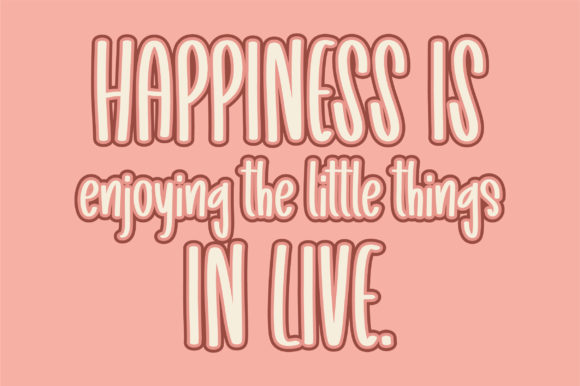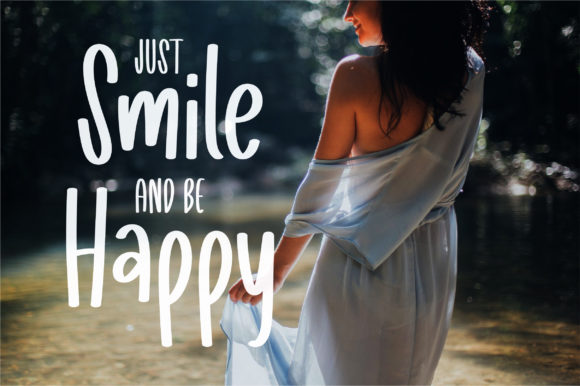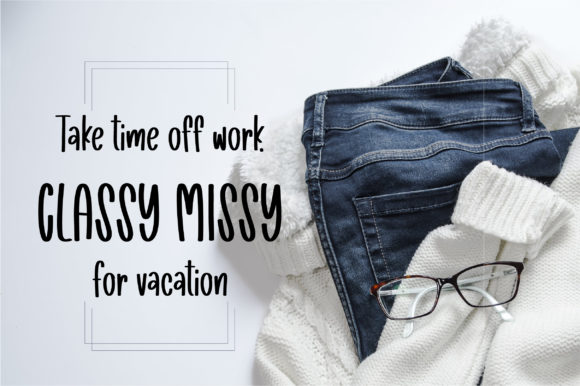
Introduction to Happiness is Font
Do you remember that moment when you stumbled upon the perfect design element for your creative project? The one that made everything click into place and your vision shine? That’s exactly what we’re excited to share with you today – a game-changing design resource that will elevate your next project: the Happiness is Font.
As designers, we’re always on the lookout for high-quality, versatile fonts that can breathe life into our ideas. And that’s exactly what Happiness is Font offers – a cheerful and friendly font perfect for illustrations, posters, logos, book covers, and much more. With a transparent background and free download option, this design resource is a must-have for any creative project. Whether you’re a seasoned pro or just starting out, Happiness is Font is sure to bring a smile to your face and a touch of magic to your designs.
- Unique, modern design that conveys a sense of joy and positivity, perfect for branding and design resources
Honest Review: Happiness is Font
I recently had the chance to experiment with Happiness is Font for a creative project, and I must say it’s been a great addition to my design resources. The free download has been a game-changer for me, allowing me to bring a unique touch to my work.
Here are some things that work well: ✨ High-quality glyphs, ✨ a transparent background that blends seamlessly with any design, and ✨ an impressive range of weights and styles to choose from.
However, there are a few limitations to consider: ⚠️ The font doesn’t support as many languages as I would have liked, which can be a challenge for projects that require multilingual support. Additionally, the font’s bold weights can sometimes appear a bit pixelated at larger sizes.
Overall, I’m thoroughly impressed with Happiness is Font, and I think it’s a fantastic resource for designers working on creative projects. While it may not be perfect, its strengths far outweigh its weaknesses.
- Pros: High-quality glyphs, transparent background, versatile weight and style options
- Cons: Limited language support, potential pixelation issues in bold weights
Happiness is Font
Happiness is Font is a free download available for your creative project. With a transparent background and high quality design, it’s perfect for adding a personal touch to your next design.
Tips for Getting the Most Out of Happiness is Font
To get the most out of Happiness is Font, try using it in combination with other design elements, such as graphics and images. You can also experiment with different font sizes and styles to add visual interest to your design.
Happiness is Font is perfect for a variety of creative projects, including social media graphics, blog posts, and presentations. Its high quality design and transparent background make it easy to use and customize.